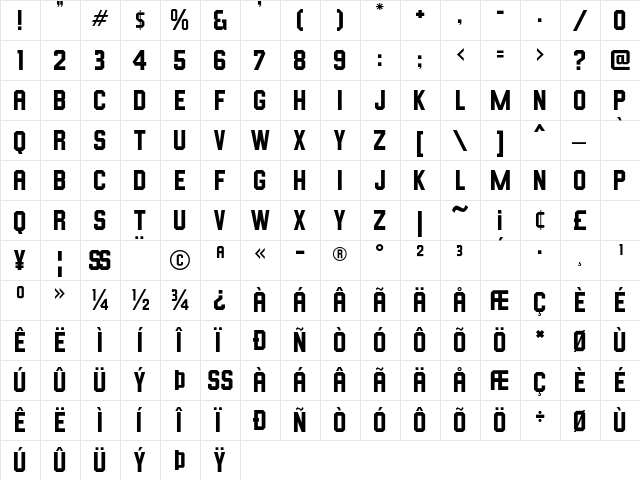
Base Runner JNL Regular
Design Context for Base Runner JNL Typeface
Base Runner JNL takes a measured approach to typography — its balanced proportions and neutral character make it a reliable workhorse for both digital and print work.